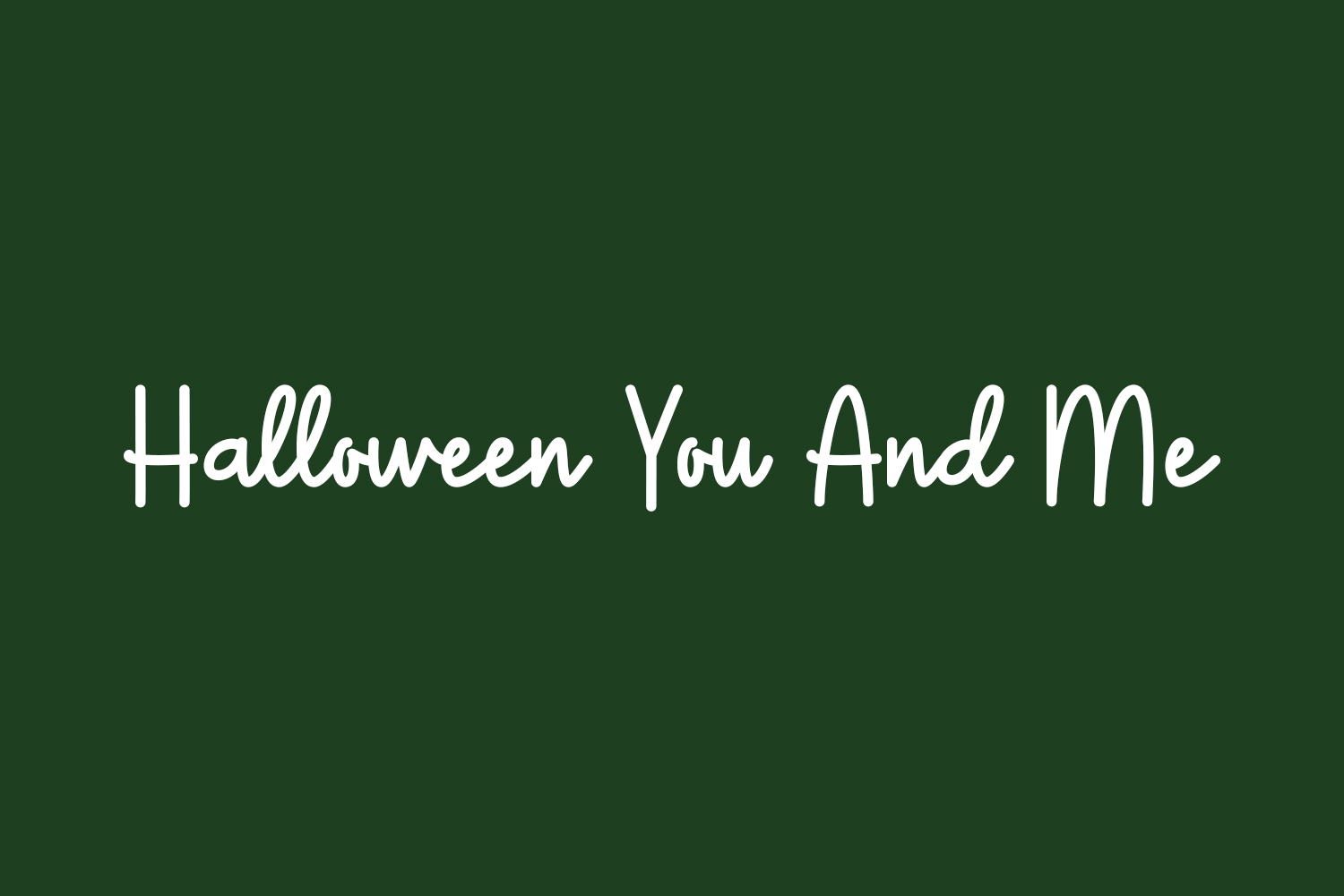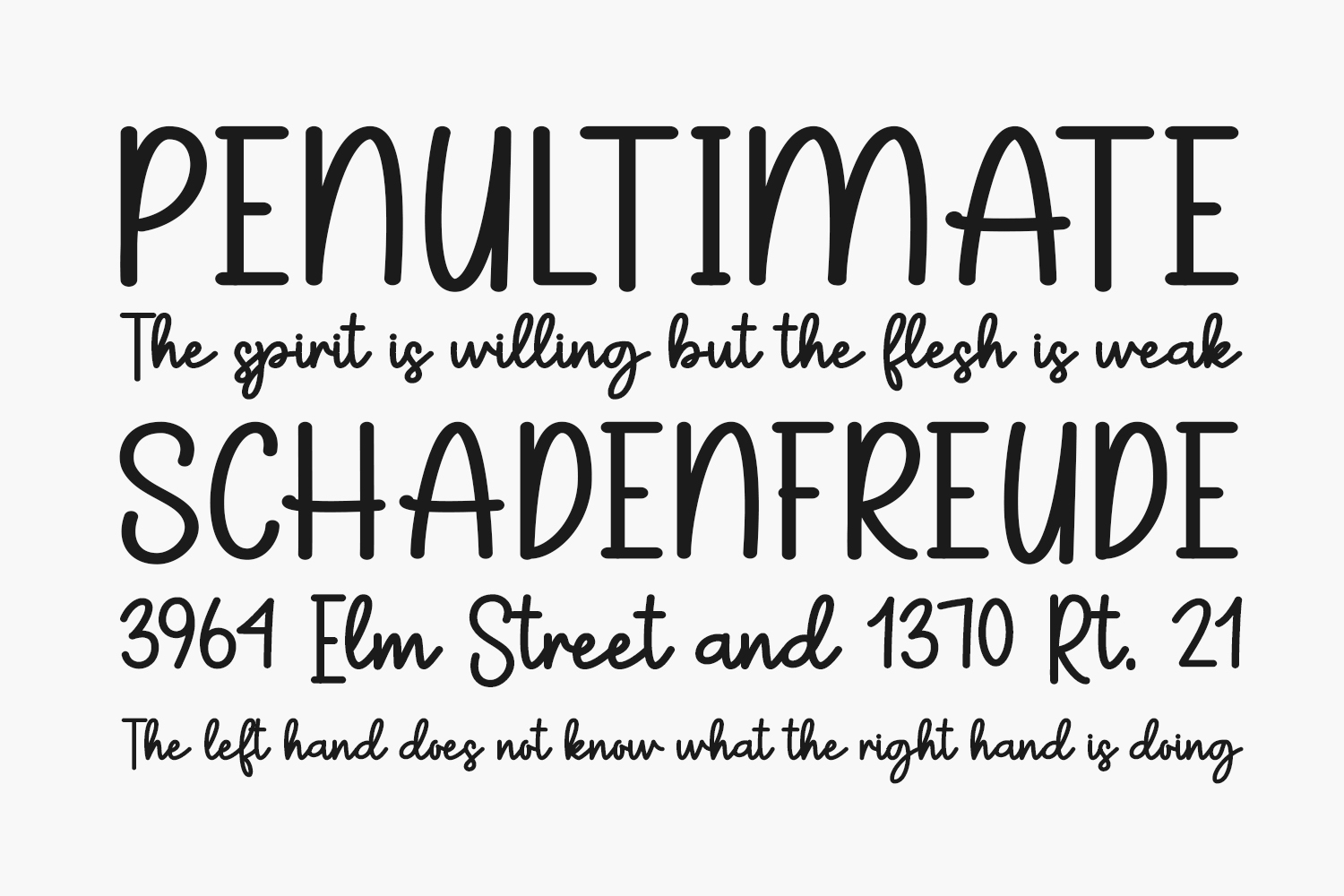
Celebrate Halloween with the charming and elegant Halloween You And Me Free Font handwritten font. Discover its remarkable versatility and employ it to craft stunning designs that capture the essence of the season. Halloween You And Me Free Font is free for personal use only. Please purchase the full version for commercial use.
Designed by Danar Nugroho